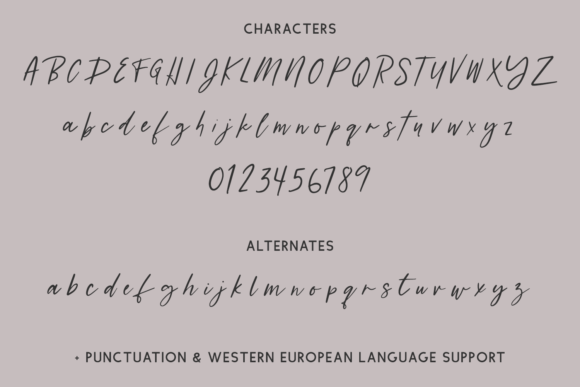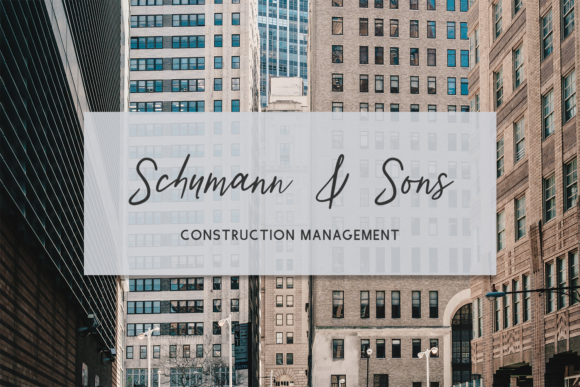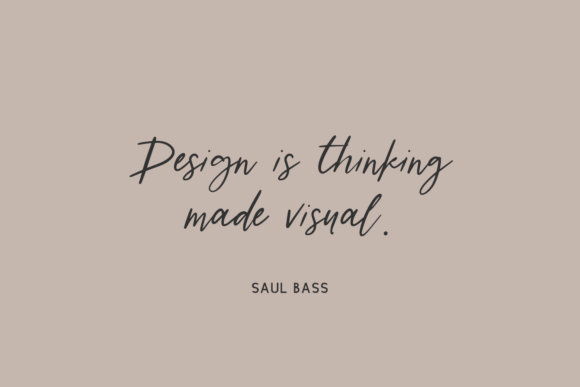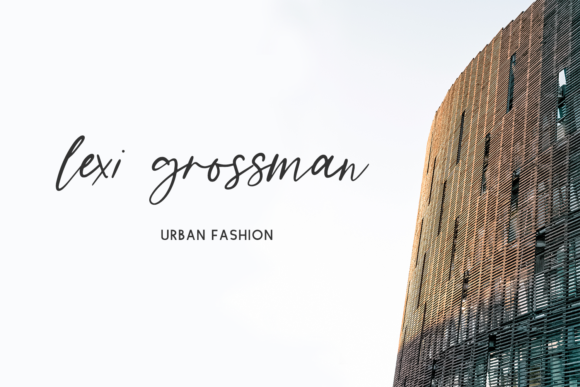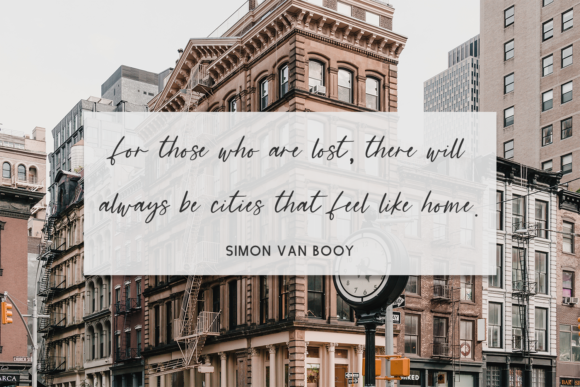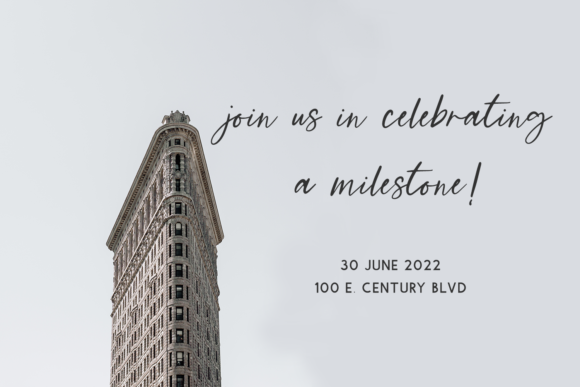
Westerburg Script Font
About Westerburg Script Font
Westerburg Script is a sweet and friendly handwritten font. Its natural and unique style makes it incredibly fitting to a large pool of designs. This font is PUA encoded which means you can access all of the glyphs and swashes with ease!